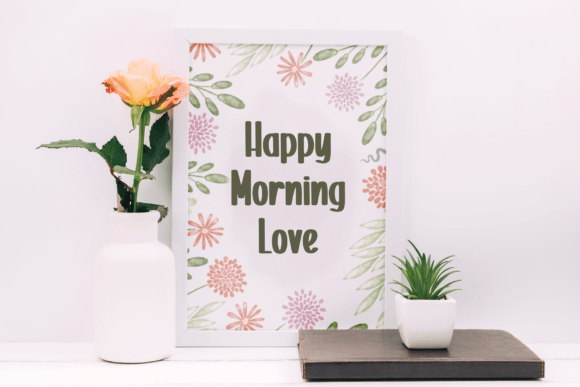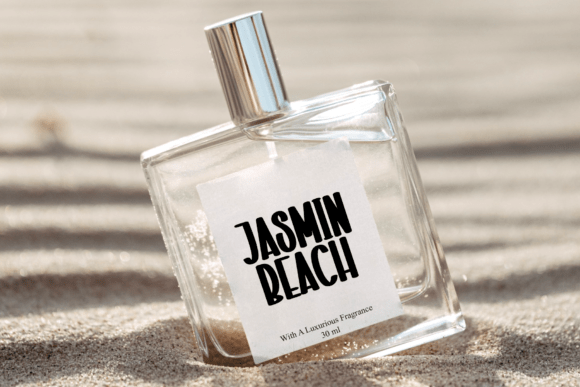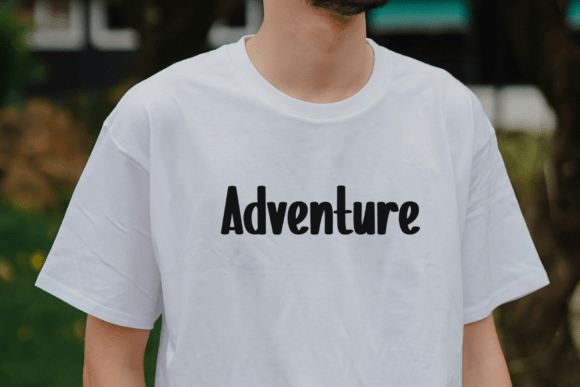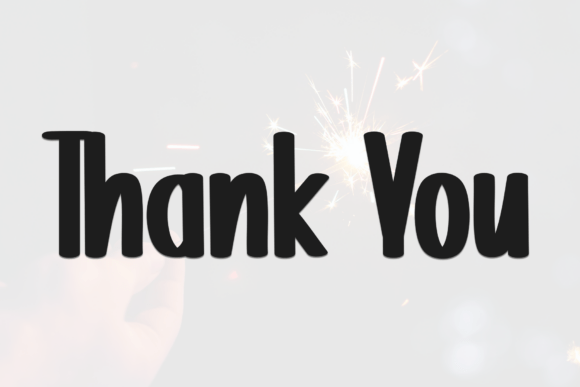
Ignite Your Creativity with Firework Font: A Bold and Playful Display Font
Are you looking for a font that can add a spark to your designs and make them pop like a firework in the night sky? Look no further than Firework Font, a bold and playful display font that’s bursting with energy! With its chunky letterforms and soft curves, Firework captures the excitement of celebrations, making it perfect for party invitations, festive banners, children’s designs, and fun branding projects.
What Makes Firework Font So Special?
Firework Font is more than just a font – it’s an experience. Its unique blend of chunky and soft elements gives it a distinctive look that’s both playful and eye-catching. The font’s bold letterforms are perfect for making a statement, while its soft curves add a touch of warmth and friendliness. This makes Firework Font ideal for designs that need to be fun, energetic, and engaging.
Perfect for Celebratory Designs
Firework Font is specifically designed to capture the excitement of celebrations. Whether you’re creating party invitations, festive banners, or children’s designs, this font is sure to add a touch of magic to your project. Its bold and playful style makes it perfect for:
- Party invitations: Make your party invitations stand out with Firework Font’s bold and playful style.
- Festive banners: Create eye-catching banners that will grab attention and add to the celebratory atmosphere.
- Children’s designs: Firework Font is perfect for kids’ party invitations, coloring books, and other fun designs.
- Fun branding projects: Add a touch of playfulness to your brand with Firework Font’s unique and energetic style.
Key Features of Firework Font
So, what makes Firework Font so special? Here are some of its key features:
- Bold and playful style: Firework Font is designed to make a statement with its bold and playful style.
- Chunky letterforms: The font’s chunky letterforms give it a distinctive look that’s perfect for making a statement.
- Soft curves: The soft curves add a touch of warmth and friendliness to the font.
- Easy to read: Despite its bold style, Firework Font is easy to read, making it perfect for designs that need to be both fun and functional.
How to Use Firework Font in Your Designs
Using Firework Font in your designs is easy. Here are some tips to get you started:
- Pair it with other fonts: Firework Font pairs well with other fonts, especially those with a more minimalist style.
- Use it for headings: Firework Font is perfect for headings and titles, where its bold style can really make an impact.
- Add some color: Firework Font looks great with bright and bold colors, which can add to the celebratory atmosphere.
Firework Font is a bold and playful display font that’s perfect for designers and crafters who want to add a spark to their designs. With its chunky letterforms and soft curves, Firework captures the excitement of celebrations, making it ideal for party invitations, festive banners, children’s designs, and fun branding projects. So why wait? Ignite your creativity with Firework Font and make your designs pop like a firework in the night sky!